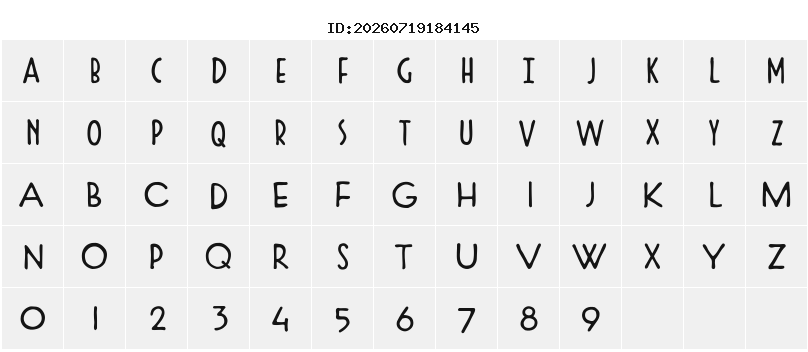
About CCDutchCourage.ttf
CCDutchCourage.ttf is a modern, elegant sans-serif font designed for ultimate readability and visual harmony. Perfect for branding, headlines, web design, and print materials.